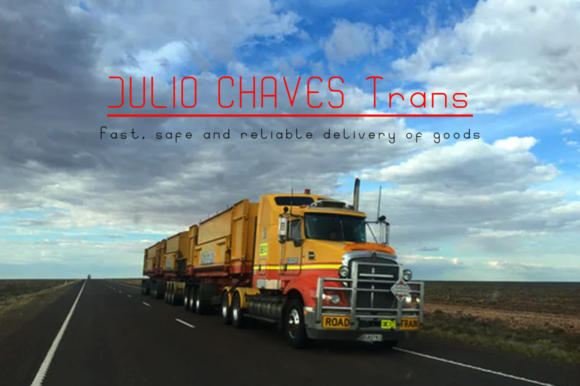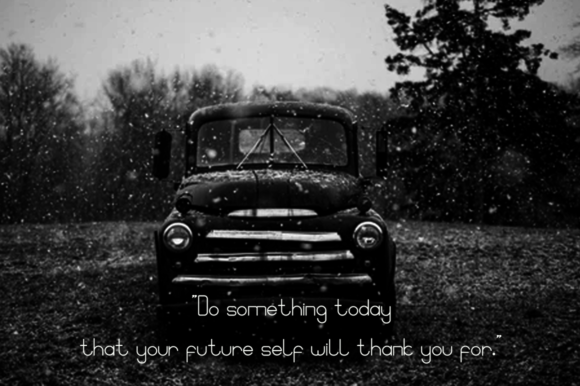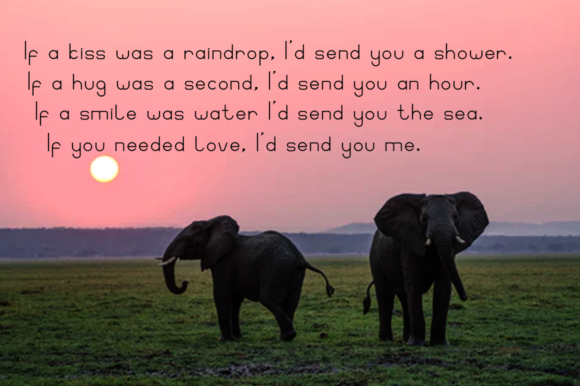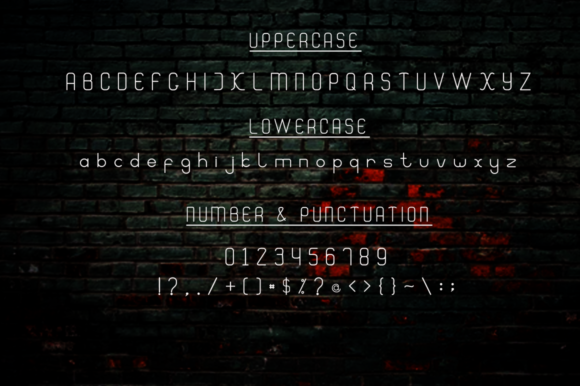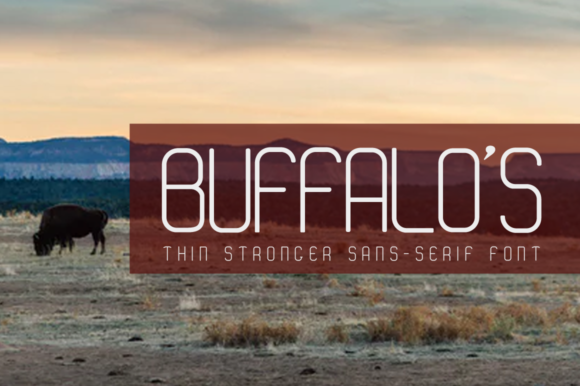
Introducing Buffalo’s Font: The Ultimate Sans Serif for Creative Projects
Are you tired of using the same old fonts for your design projects? Look no further than Buffalo’s Font, a minimal and neat sans serif font that’s perfect for adding a touch of modernity to your creative ideas. With its clean lines and simple aesthetic, Buffalo’s Font is incredibly versatile and can be matched to an incredibly large set of projects.
The Characteristics of Buffalo’s Font
Buffalo’s Font is a sans serif font, which means it doesn’t have the small lines or flourishes at the ends of the letters. This gives it a clean and minimalist look that’s perfect for designs where you want the text to be the focus. The font is also highly legible, making it easy to read in a variety of sizes and contexts.
One of the standout features of Buffalo’s Font is its simplicity. The letters are straightforward and uncomplicated, with a consistent width and style throughout. This makes it easy to use in a variety of design applications, from headings and titles to body text and captions.
The Benefits of Using Buffalo’s Font
So why should you choose Buffalo’s Font for your design projects? Here are just a few benefits of using this versatile font:
• Versatility: Buffalo’s Font is incredibly versatile and can be used in a wide range of design applications, from print and digital media to signage and packaging.
• Legibility: The font is highly legible, making it easy to read in a variety of sizes and contexts.
• Modern aesthetic: The clean lines and simple aesthetic of Buffalo’s Font give it a modern and sophisticated look that’s perfect for designs where you want to make a statement.
• Ease of use: The font is easy to use and can be easily integrated into your design workflow.
How to Use Buffalo’s Font in Your Design Projects
Buffalo’s Font is perfect for a wide range of design projects, including:
• Branding and logos: Use Buffalo’s Font to create a modern and sophisticated brand identity.
• Print design: Use the font in brochures, flyers, posters, and other print materials to add a touch of modernity to your designs.
• Digital media: Use Buffalo’s Font in digital media, such as website designs, social media graphics, and email marketing campaigns.
• Signage and packaging: Use the font in signage and packaging designs to create a modern and eye-catching look.
Tips for Getting the Most Out of Buffalo’s Font
Here are a few tips for getting the most out of Buffalo’s Font:
• Experiment with different sizes: Buffalo’s Font is highly legible in a variety of sizes, so experiment with different sizes to find the one that works best for your design.
• Play with color: The font looks great in a variety of colors, so don’t be afraid to experiment with different color schemes.
• Use it with other fonts: Buffalo’s Font pairs well with a variety of other fonts, so try using it with other sans serif fonts or serif fonts to create a unique look.
In conclusion, Buffalo’s Font is a versatile and modern sans serif font that’s perfect for adding a touch of sophistication to your design projects. With its clean lines, simple aesthetic, and high legibility, it’s the perfect choice for designers and crafters looking to create modern and eye-catching designs.